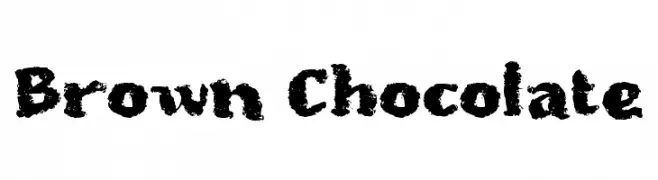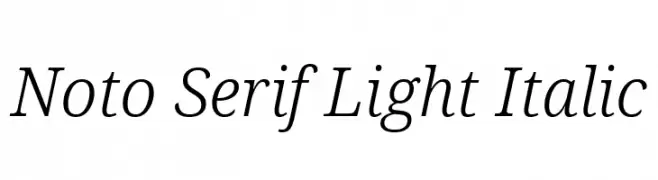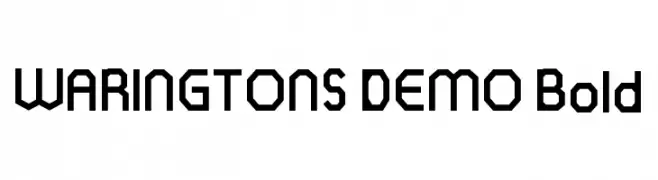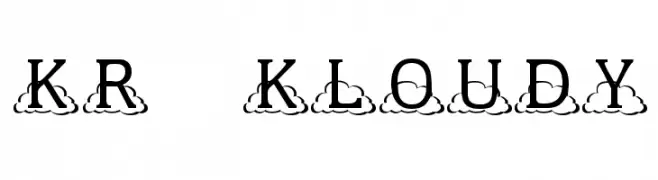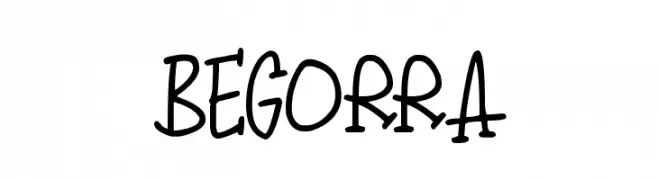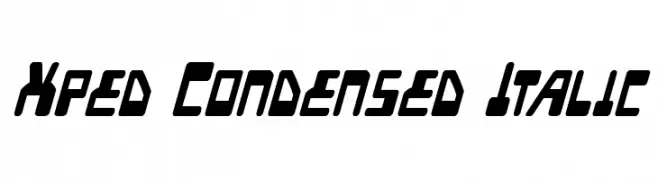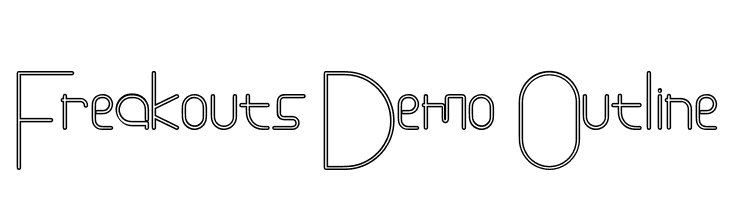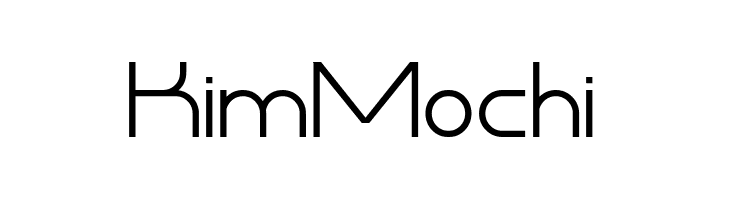
A bold, textured font with a playful, artistic style.
A modern, oblique sans-serif font with clean lines and a dynamic slant.
A light, italic serif font with elegant, slanted characters and subtle serifs.
A bold, geometric font with a modern, industrial style.
A whimsical, cloud-embellished decorative font ideal for creative headlines.
A playful, casual handwritten font with dynamic strokes and a friendly appearance.
A playful, hand-drawn font with bold strokes and a whimsical style.
A bold, condensed, and italicized font with a modern, dynamic style.
A clean, semi-condensed, extra light font with a modern and elegant style.
A bold, cursive script font with flowing, elegant strokes.